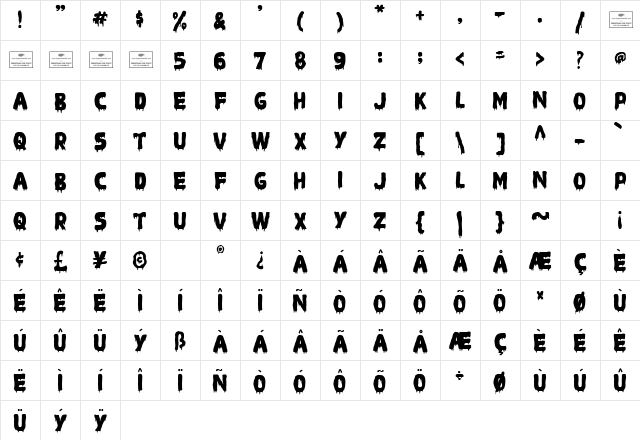
Complete Sweet Scream Regular glyph index. Displaying only characters natively supported by Sweet Scream Regular font.
Sweet Scream is a composed and adaptable typeface that performs quietly and consistently across a wide range of design contexts.